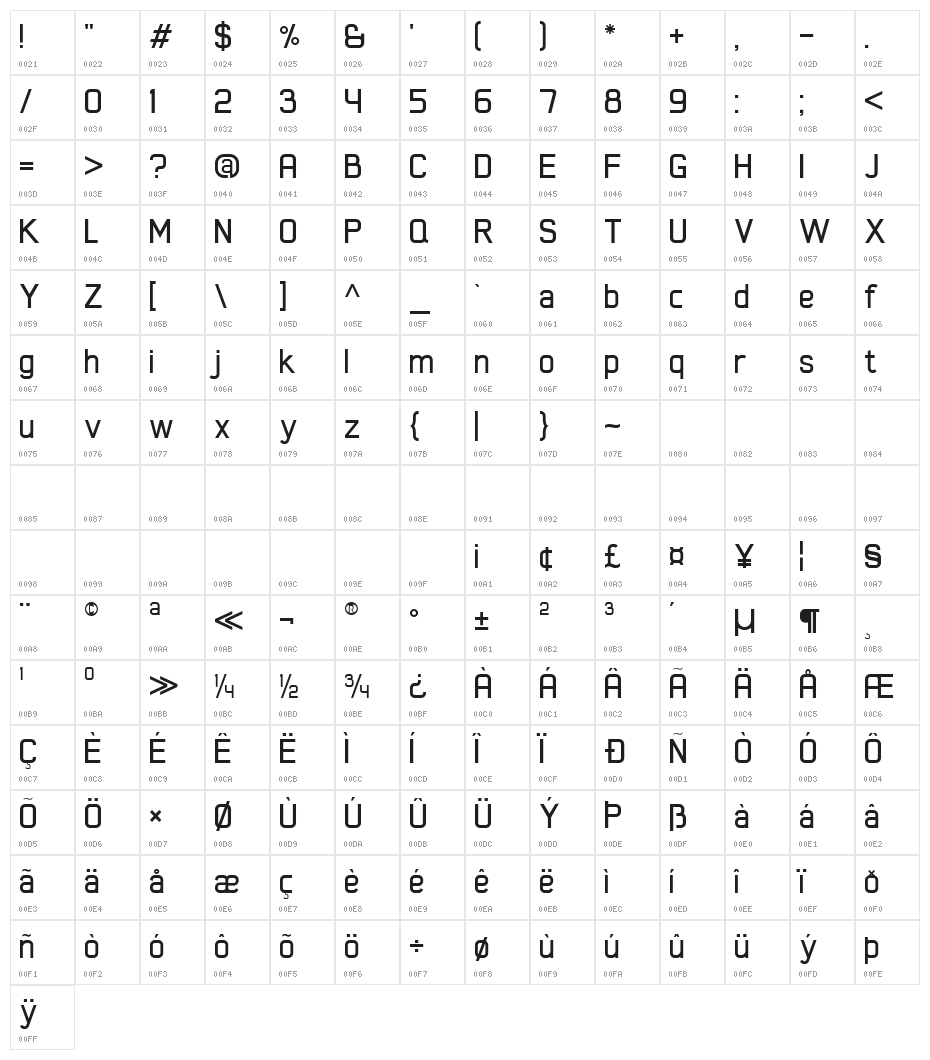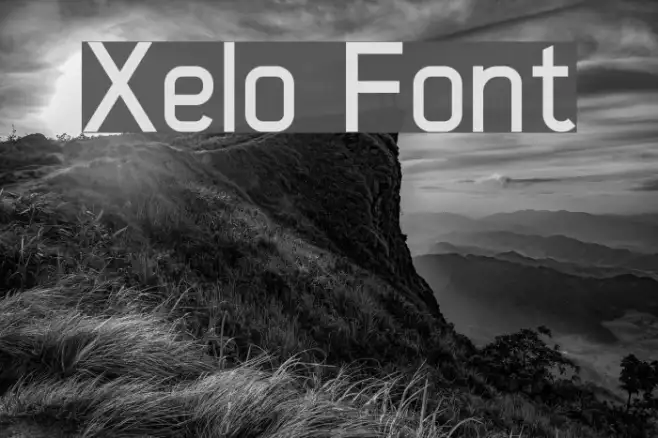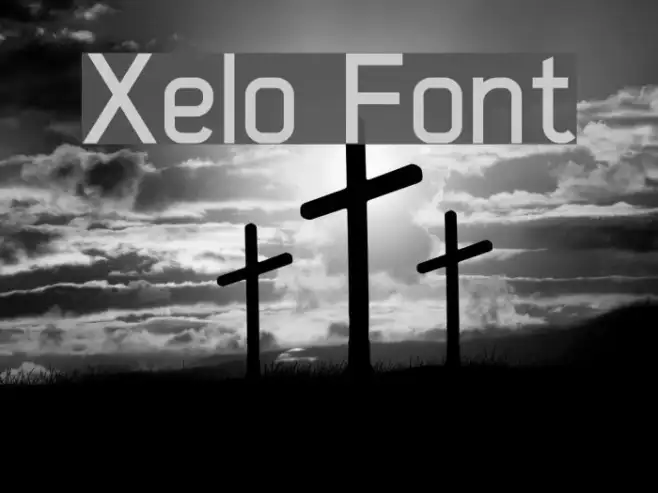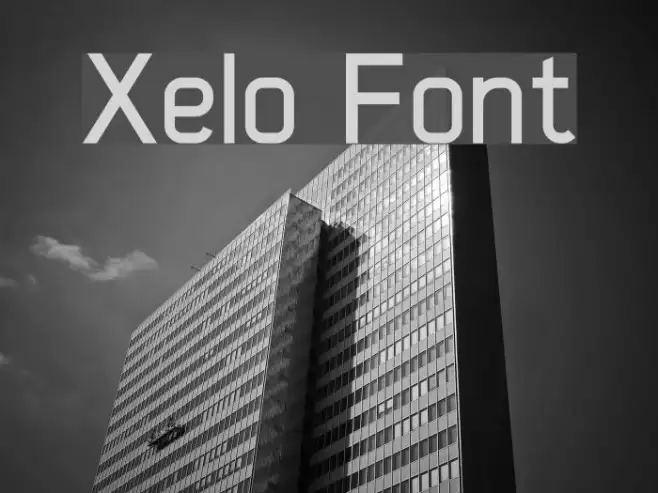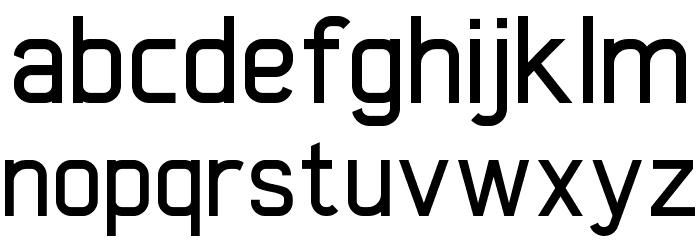
Xelo Font
Xelo Description
This font features a modern and clean design with a geometric structure. The characters are well-balanced, with uniform stroke widths that give it a sleek and contemporary appearance. The uppercase letters are bold and assertive, while the lowercase letters maintain a consistent style that complements the overall look. The numerals are clear and easy to read, making them suitable for various applications. Special characters are included, adding versatility to the font. Its simplicity and clarity make it ideal for digital and print media.
| Proposed Projects | Ideal for branding, digital interfaces, signage, and editorial design. |